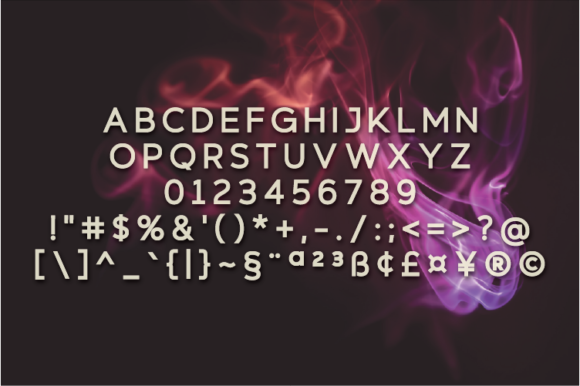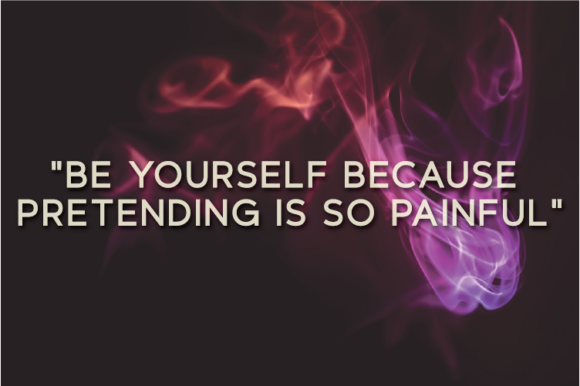
Introduction to Haloweme Font
You’ve stared at a blank canvas, eager to bring your creative project to life, only to be held back by the perfect font. That’s where Haloweme Font comes in – a clean, modern sans serif font designed to elevate your work and make it stand out. Whether you’re crafting a digital graphic, designing a logo, or building a brand identity, Haloweme Font is an essential design resource to have in your toolkit.
With its minimalist aesthetic and versatility, Haloweme Font is a free download that can be easily customized to fit any high-quality design project. From transparent backgrounds to intricate layouts, this font is the perfect match for designers who crave precision and style. Whether you’re working on a personal project or collaborating with a team, Haloweme Font is a valuable asset that will help you achieve your creative vision.
Key Features of Haloweme Font
- Unique, modern design style that sets your creative project apart
- Perfect for use in logos, typography, and other design elements
Honest Review: Haloweme Font
As a designer, I’ve had the opportunity to work with a wide range of fonts for my creative projects. Recently, I came across the Haloweme Font, which caught my attention with its unique style and free download option.
What works well about the Haloweme Font is its versatility and high quality. The font is available in a variety of weights and styles, making it perfect for both digital and print designs. The transparent background option is also a great feature, allowing for seamless integration with other design elements.
- ✨ Unique and stylish design
- ✨ High quality and clear typography
However, there are a few limitations to consider. The font may not be suitable for all types of projects, and the selection of styles and weights is limited compared to other design resources.
- ⚠️ Limited selection of styles and weights
- ⚠️ May not be suitable for all types of projects
Overall, I would recommend the Haloweme Font as a valuable design resource for those looking for a unique and high-quality font for their creative projects. With its free download option and transparent background feature, it’s definitely worth checking out.
How to Use Haloweme Font
Using the Haloweme Font in Creative Projects
The Haloweme Font is an ideal design resource for creative projects, offering a high-quality, unique aesthetic. Utilize the font in Canva, Adobe Photoshop, or Illustrator to add a professional touch to your designs.
Tips for Getting the Most Out of Haloweme Font
For optimal results, experiment with different font sizes and styles to achieve the desired effect. Combine the Haloweme Font with other design elements to create visually striking and cohesive designs.
Common Use Cases for Haloweme Font
The Haloweme Font is suitable for a variety of applications, including logos, branding materials, social media graphics, and promotional materials, making it a valuable design resource for any creative project.
Alternatives to Haloweme Font
Comparison to Haloweme Font: Font Awesome has a more extensive library of icons and is easier to use, making it a better choice for designers who need to create complex designs with a lot of visual elements. However, it may not offer the same level of customization as Haloweme Font.
Noto Sans is a high-quality, open-source font that’s perfect for designers who need a font with a clean and modern look. It’s available for free download and can be used for both personal and commercial projects. Noto Sans is ideal for designers who need a font with a transparent background and a high level of customization.
Comparison to Haloweme Font: Noto Sans has a more minimalist design compared to Haloweme Font, but it’s more versatile and can be used for a wide range of creative projects. It’s also a better choice for designers who need a font with a high level of customization and a transparent background.